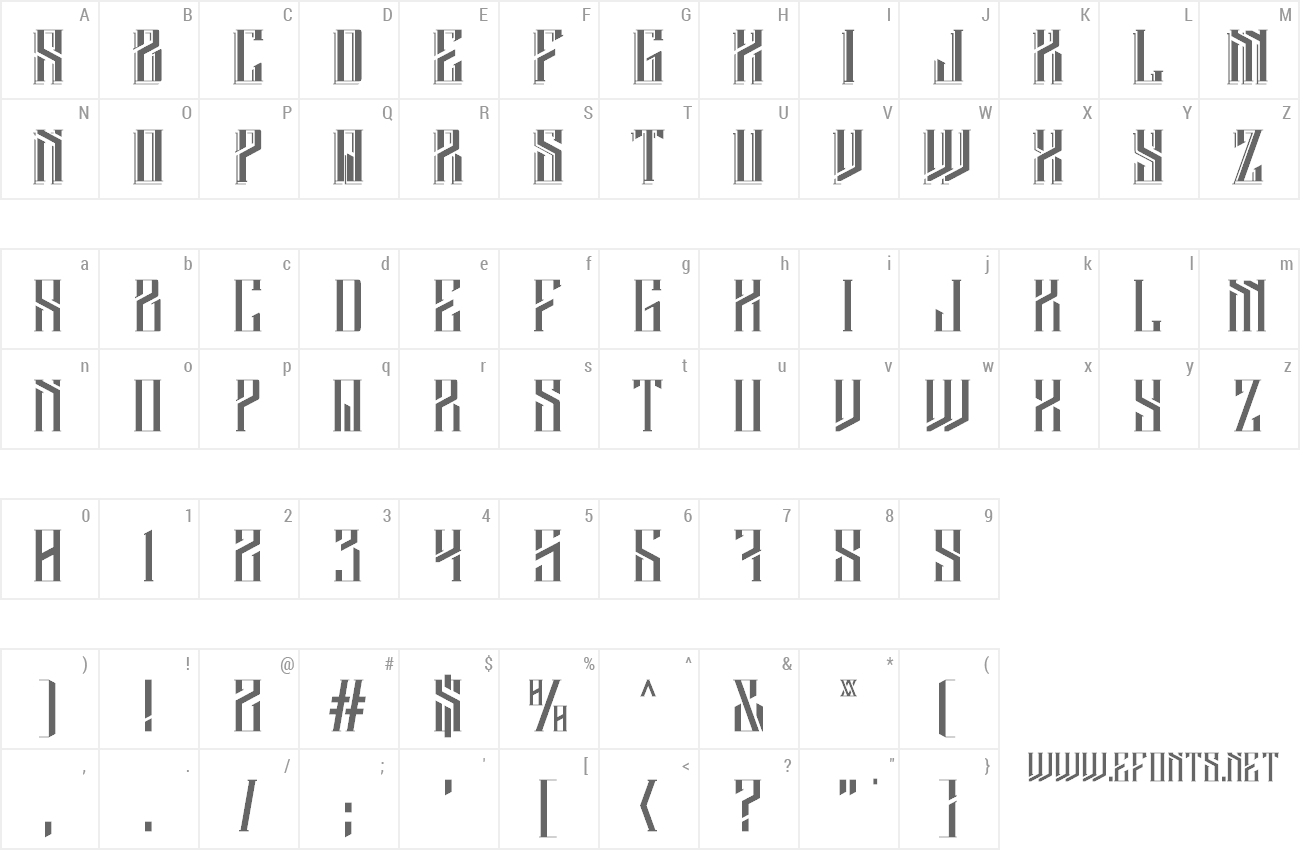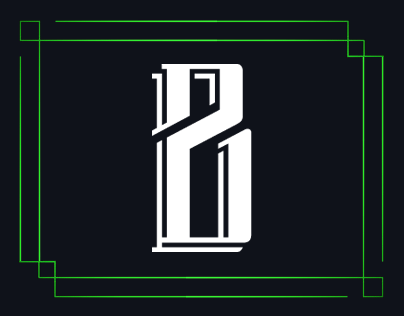
Preview and download Barbarossa Font. Created by Ezzazebra in Fancy Various styles with Free for personal use license.
Barbarossa is a typeface inspired by the hero character named Barbarossa. Represented from his origin, Turkish’s (Architecture). The typeface is a bold font, basically made from the structural and cubical rectangle form. The font is for personal use. So, to get the complete typeface or use it for commercial, PLEASE Send a message to ezza_menggambar@yahoo.co.id or ezzazebra@gmail.com and you can use Worldremit.com to donate me & appreciate my work. To see the complete project and personal portfolio, please visit ADHREZA portfolio : http://www.behance.net/adhreza Thank You |